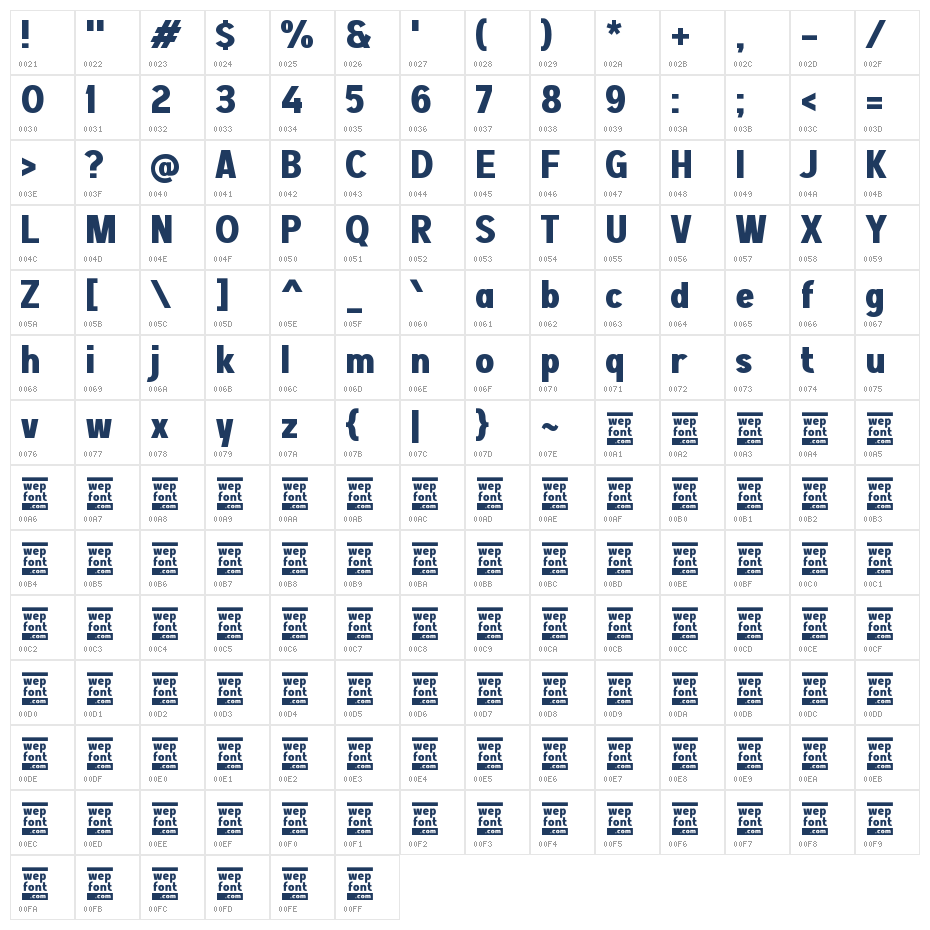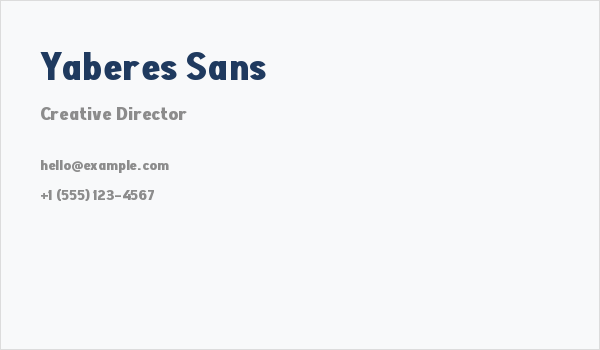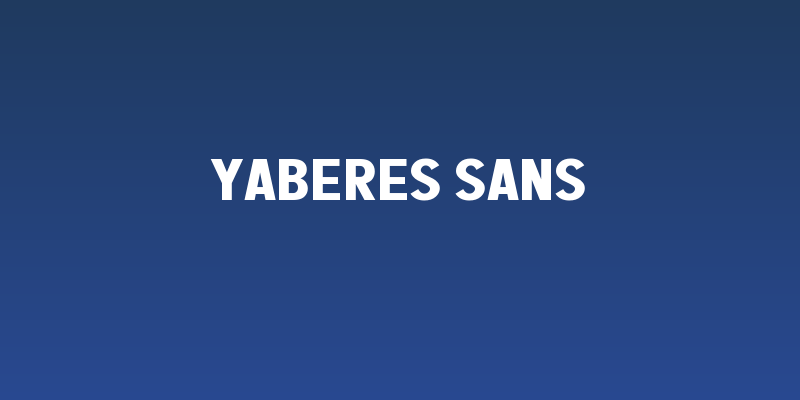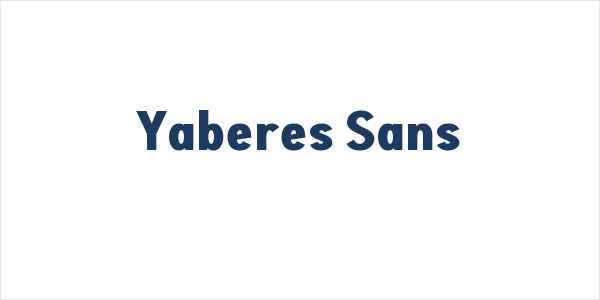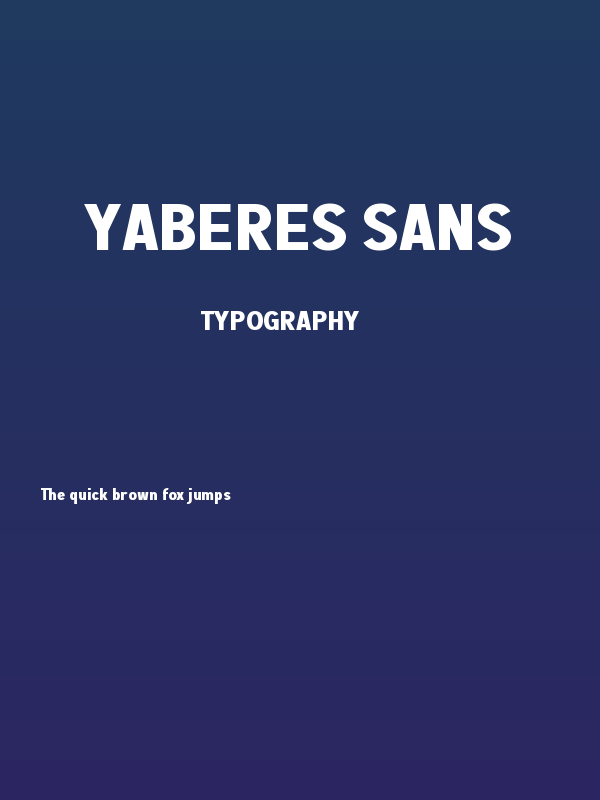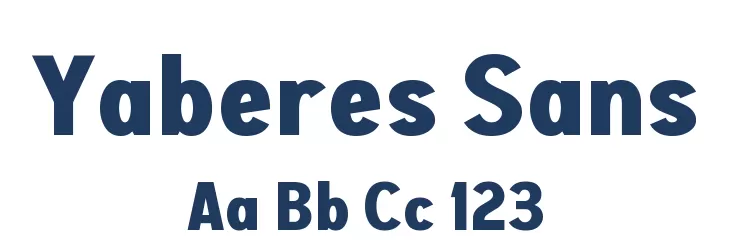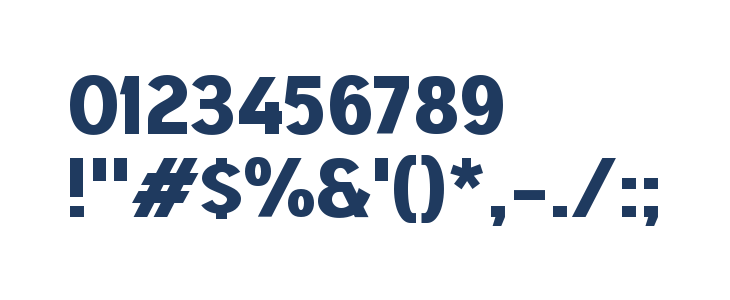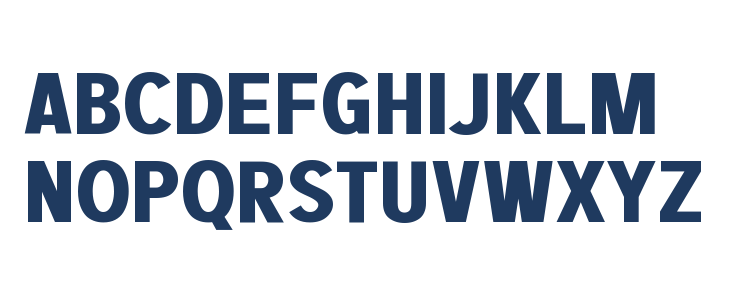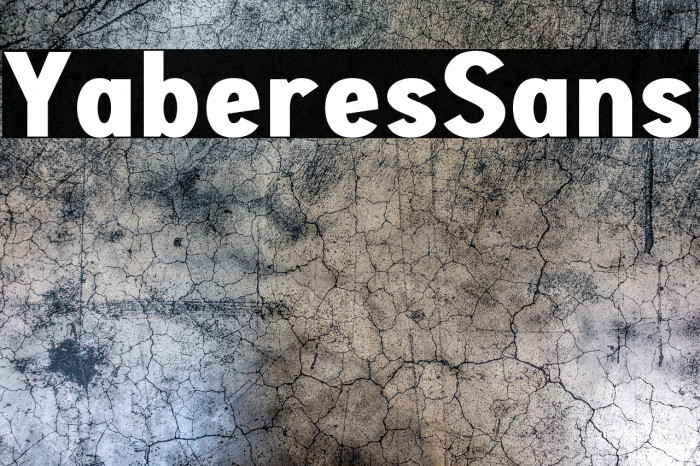
Yaberes Sans Font
Yaberes Sans Description
Bold, rounded sans-serif font with a modern and friendly appearance.
| Overall Style | Modern, Friendly, Rounded |